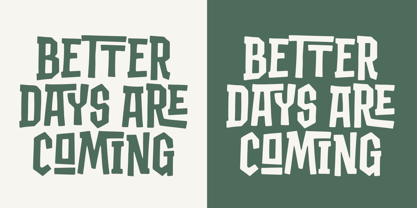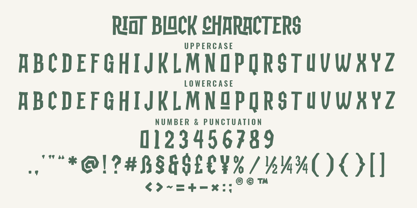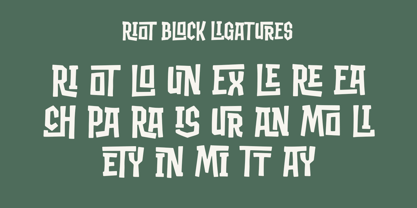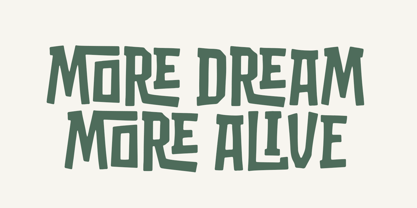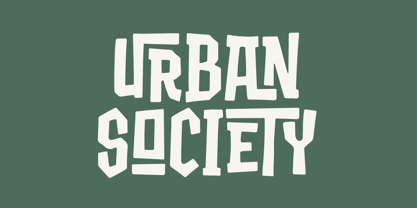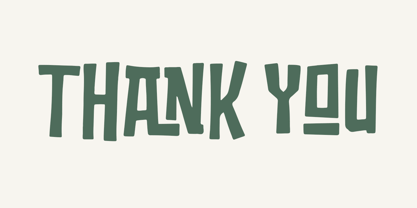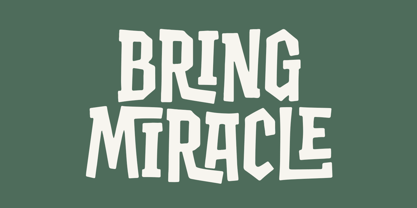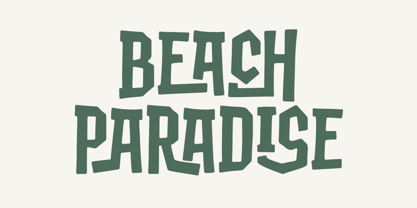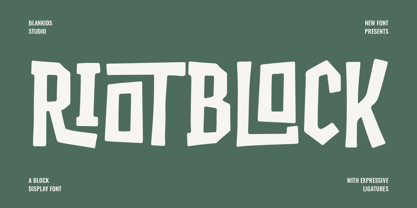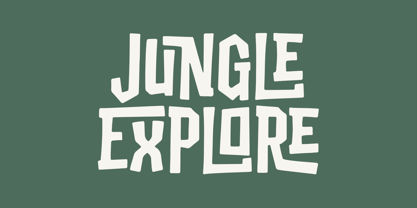
Riot block
von Blankids
Die Schriftfamilie Riot block wurde von Bangkit Tri Setiadi entworfen und von Blankids veröffentlicht. Riot block enthält 1 Stile. Mehr über diese Familie
Riot Block is a bold block display font designed to bring raw energy and strong visual impact to your designs. Built with solid letterforms and expressive details, this typeface delivers a rebellious yet playful character that stands out instantly. Featuring unique ligatures and dynamic shapes, Riot Block adds rhythm and personality to headlines, posters, branding, packaging, apparel, and editorial layouts. Its slightly irregular construction creates a handcrafted feel while maintaining strong readability at large sizes. Perfect for projects that demand attitude and confidence, Riot Block works exceptionally well for streetwear brands, creative studios, music artwork, event posters, and bold typographic statements. Riot Block isn’t just a font it’s a visual voice for designs that want to be loud, confident, and unapologetically expressive.
Designer: Bangkit Tri Setiadi
Foundry: Blankids